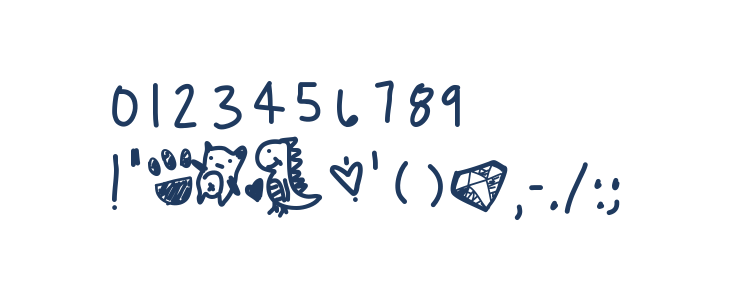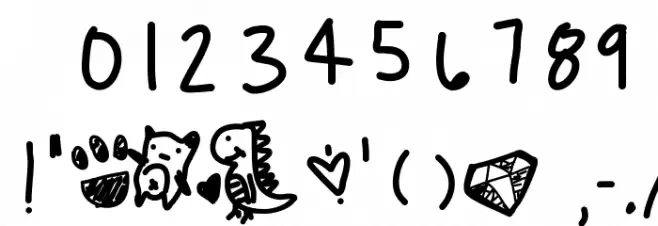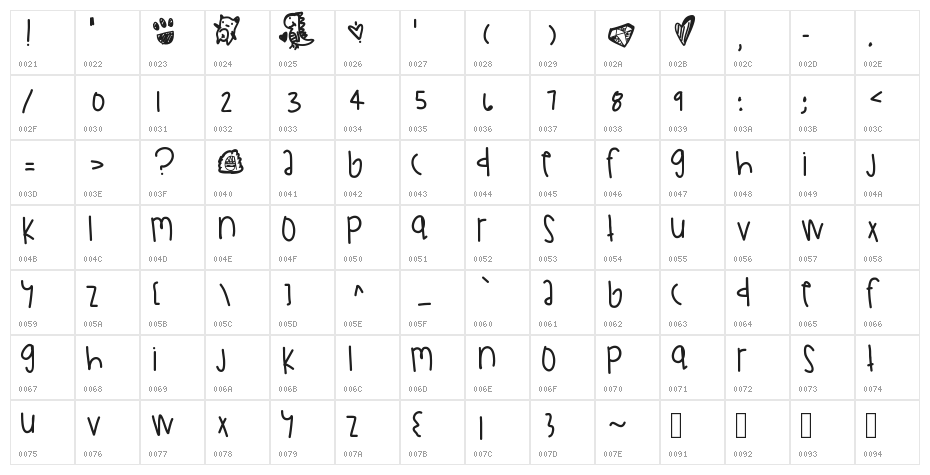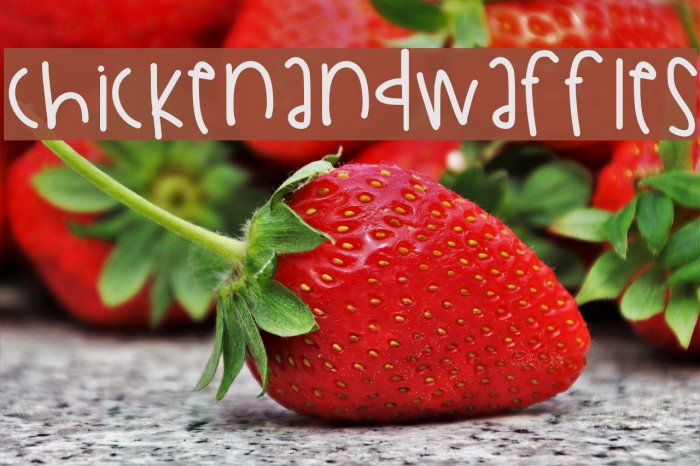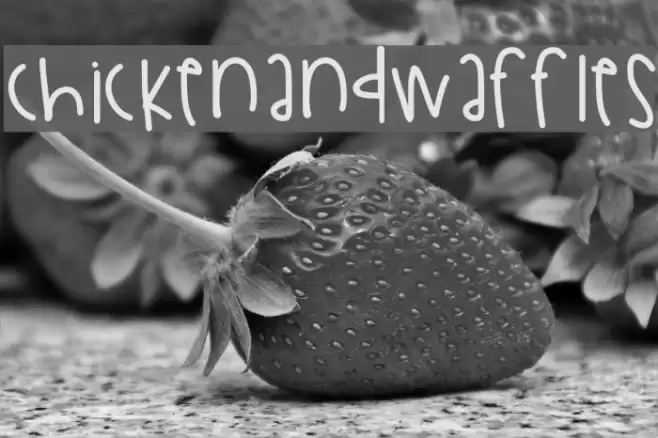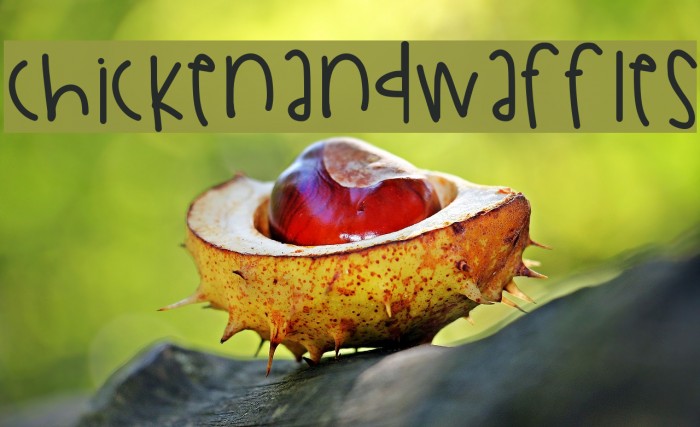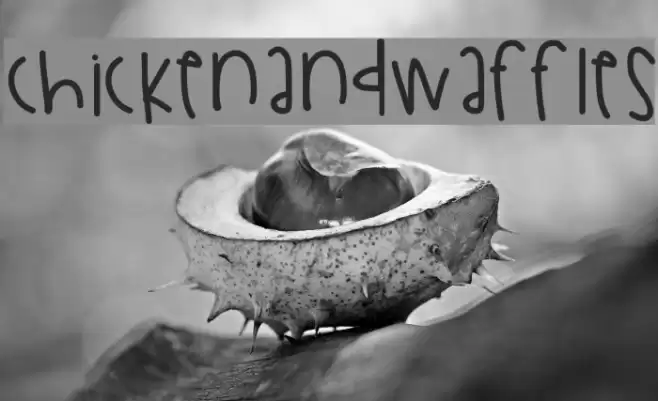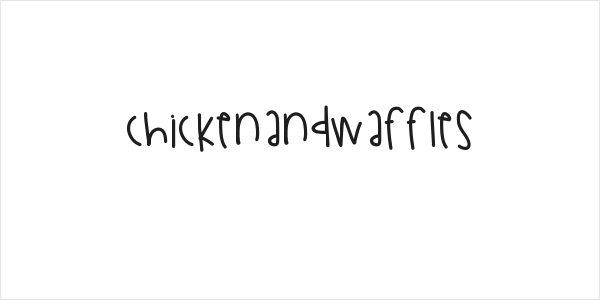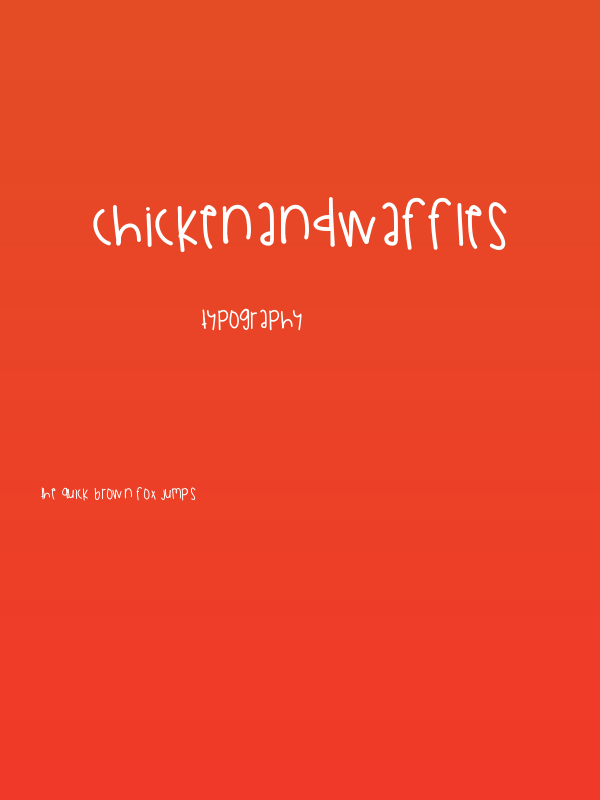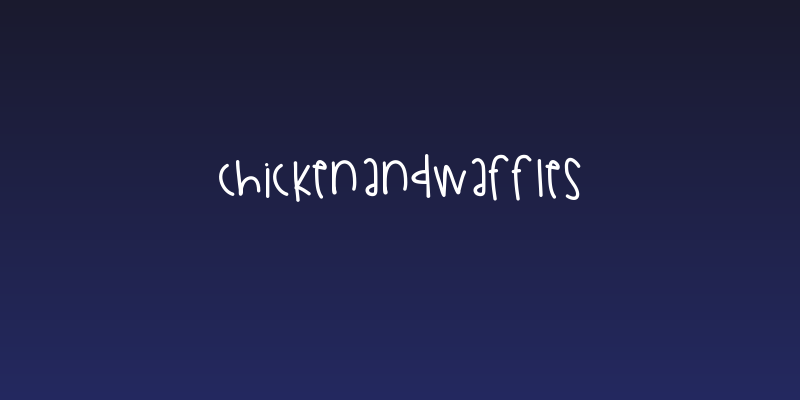
ChickenAndWaffles Font
ChickenAndWaffles Description
This playful and whimsical font features a handwritten style with a casual and friendly appearance. The letters are slightly irregular, adding a touch of charm and personality. The characters have a consistent stroke width, giving it a uniform look while maintaining its informal vibe. The font includes a full set of lowercase and uppercase letters, numbers, and a variety of special characters, each designed with a unique flair. The overall design is approachable and fun, making it suitable for projects that require a lighthearted and engaging touch.
| Use Case | Greeting cards, Children's books, Casual branding |
| Proposed Projects | Ideal for children's books, greeting cards, playful branding, and casual invitations. |